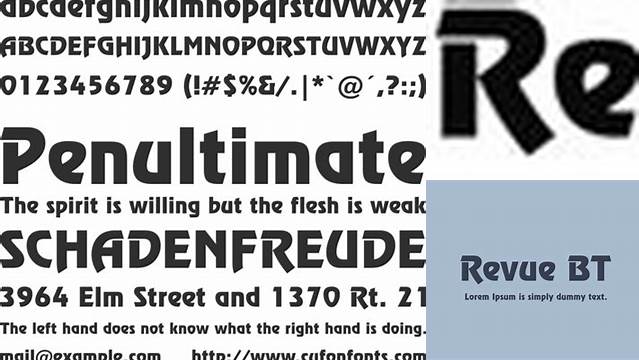
Revue BT Regular Font: Free Download & Usage Guide
Hey guys! Are you on the hunt for a versatile and stylish font that can elevate your design projects? Look no further! In this comprehensive guide, we're diving deep into the world of Revue BT Regular font, exploring its features, benefits, and how you can snag it for free. Whether you're a seasoned designer or just starting out, this article is your one-stop shop for everything Revue BT Regular.
What is Revue BT Regular Font?
Revue BT Regular font is a classic typeface known for its clean lines, elegant curves, and overall readability. This font belongs to the sans-serif family, which means it lacks the small decorative strokes (serifs) found in traditional fonts like Times New Roman. The absence of serifs gives Revue BT Regular a modern and minimalist aesthetic, making it a popular choice for a wide range of design applications. The font's versatility stems from its balanced proportions and consistent letterforms, ensuring legibility across various sizes and mediums. Whether you're designing a sleek website, a professional brochure, or an engaging presentation, Revue BT Regular can help you achieve a polished and sophisticated look. Its neutrality makes it a fantastic choice for projects where the message needs to take center stage, without the font overpowering the content. Revue BT Regular's appeal extends to its availability in various weights and styles, offering designers flexibility in creating visual hierarchy and emphasis. The regular weight, as the name suggests, provides a balanced and neutral appearance, making it suitable for body text and headings alike. The font's clarity and readability are particularly beneficial for longer texts, ensuring a comfortable reading experience for your audience. In the digital realm, Revue BT Regular shines with its excellent rendering on screens, maintaining its crispness and legibility even at smaller sizes. This makes it a go-to choice for web designers aiming for a clean and professional online presence. Moreover, its compatibility across different operating systems and devices ensures a consistent visual experience for all users. For print projects, Revue BT Regular delivers equally impressive results, producing sharp and well-defined characters on paper. Its versatility makes it a valuable asset for designers working on both digital and print media. The font's ability to seamlessly blend into various design contexts makes it a timeless and reliable choice for any project, ensuring a professional and aesthetically pleasing outcome. Its enduring popularity among designers is a testament to its quality and versatility.
Key Features and Benefits of Revue BT Regular
Let's break down the key features and benefits of Revue BT Regular font that make it such a popular choice among designers. First and foremost, its clean and modern aesthetic is a major draw. The sans-serif design gives it a contemporary feel, making it perfect for projects that need to convey a sense of sophistication and clarity. This makes it a fantastic choice for branding materials, websites, and any design where you want to project a professional image. The simplicity of the font ensures that it doesn't distract from the message, allowing your content to take center stage. In addition to its aesthetic appeal, Revue BT Regular boasts excellent readability. The well-defined letterforms and balanced proportions make it easy on the eyes, even in long blocks of text. This is crucial for ensuring that your audience can comfortably read and engage with your content. Whether you're designing a website with lengthy articles or a brochure with detailed information, the readability of Revue BT Regular will help keep your audience engaged. Versatility is another standout feature of this font. It works well in a variety of applications, from headlines and body text to logos and branding materials. This flexibility makes it a valuable asset for any designer, as it can be used across a wide range of projects. You can use it for both print and digital designs, ensuring consistency across all your branding and marketing materials. The font's adaptability makes it a cost-effective choice, as you won't need to invest in multiple fonts for different purposes. Furthermore, Revue BT Regular is known for its compatibility across different platforms and devices. This means that your designs will look consistent whether they're viewed on a desktop computer, a mobile phone, or a printed page. This is particularly important in today's multi-device world, where users access content from a variety of devices. Ensuring consistency in your typography will help maintain a professional and cohesive brand image. The font also supports a wide range of characters and languages, making it a great choice for international projects. Its extensive character set allows you to communicate effectively with a global audience, without worrying about missing characters or glyphs. This makes it a valuable asset for businesses and organizations that operate in multiple countries or regions. Finally, the availability of Revue BT Regular for free (in many cases, with certain licensing restrictions) makes it an attractive option for designers on a budget. This allows you to access a high-quality font without incurring additional costs. However, it's essential to understand the licensing terms associated with free fonts to ensure that you're using them legally and ethically. Overall, the combination of its aesthetic appeal, readability, versatility, compatibility, and potential free availability makes Revue BT Regular a top choice for designers looking for a reliable and stylish font.
Best Uses for Revue BT Regular Font
So, you've got Revue BT Regular font – now what? Let's explore the best uses for this versatile typeface. Its clean and modern aesthetic makes it a fantastic choice for branding. Whether you're designing a logo, creating a brand style guide, or developing marketing materials, Revue BT Regular can help you establish a professional and consistent brand identity. The font's simplicity and readability ensure that your brand message is communicated clearly and effectively. Its neutrality allows it to pair well with a variety of other design elements, making it a versatile choice for branding across different industries. In the realm of web design, Revue BT Regular truly shines. Its excellent readability on screens makes it ideal for body text, headings, and navigation menus. The font's clean lines and balanced proportions ensure a comfortable reading experience for your website visitors. This is crucial for keeping users engaged and preventing them from getting overwhelmed by the text. Its compatibility across different browsers and devices is another major advantage, ensuring that your website looks consistent for all users. Revue BT Regular also works well in responsive designs, adapting seamlessly to different screen sizes. For print projects, Revue BT Regular is equally effective. Its crisp letterforms and clear legibility make it a great choice for brochures, flyers, posters, and other printed materials. The font's versatility allows you to use it for both headlines and body text, creating a cohesive and professional look. Whether you're designing a marketing campaign or a corporate report, Revue BT Regular can help you achieve a polished and impactful result. The font's neutrality ensures that it doesn't distract from the content, allowing your message to take center stage. In editorial design, such as magazines and newspapers, Revue BT Regular provides a clean and readable typeface that enhances the overall reading experience. Its balanced letterforms and consistent spacing make it easy to read long blocks of text, which is essential for engaging readers. The font's versatility allows it to be used for headlines, subheadings, and body text, creating a harmonious and visually appealing layout. Its professional appearance makes it suitable for a wide range of editorial content, from news articles to feature stories. Furthermore, Revue BT Regular is a solid choice for presentations. Its readability and clarity ensure that your slides are easy to understand, even from a distance. The font's modern aesthetic adds a touch of professionalism to your presentations, helping you make a strong impression on your audience. Whether you're presenting to a small group or a large conference, Revue BT Regular can help you communicate your message effectively. It's particularly well-suited for presentations that require a clean and minimalist design. Finally, consider Revue BT Regular for UI/UX design. Its clear and legible characters make it an excellent option for interface elements such as buttons, labels, and menus. The font's simplicity ensures that the user interface is intuitive and easy to navigate. Its modern aesthetic aligns well with current design trends, helping you create a visually appealing and user-friendly interface. By leveraging its versatility and legibility, you can use Revue BT Regular to enhance the overall user experience of your digital products.
Alternatives to Revue BT Regular Font
Conclusion: Is Revue BT Regular Font Right for You?
So, after this deep dive, is Revue BT Regular font right for you? The answer, as with most design choices, depends on your specific needs and preferences. However, let's recap the key takeaways to help you make an informed decision. Revue BT Regular is a versatile sans-serif font known for its clean lines, modern aesthetic, and excellent readability. These qualities make it a solid choice for a wide range of applications, from branding and web design to print projects and presentations. Its neutrality allows it to seamlessly integrate into various design contexts, making it a reliable and adaptable typeface. One of the main advantages of Revue BT Regular is its potential availability for free. While commercial use often requires a license, you may be able to find it for personal projects or try it out before committing to a purchase. However, always remember to carefully check the licensing terms before using any font, especially for commercial purposes. This will help you avoid any legal issues and ensure that you're using the font ethically. The font's legibility is another significant benefit. Its well-defined letterforms and balanced proportions make it easy on the eyes, even in long blocks of text. This is crucial for ensuring that your audience can comfortably read and engage with your content. Whether you're designing a website with lengthy articles or a brochure with detailed information, the readability of Revue BT Regular will help keep your audience interested. Its modern and minimalist design makes it suitable for projects that need to convey a sense of professionalism and clarity. The sans-serif style gives it a contemporary feel, making it a great choice for businesses and organizations that want to project a forward-thinking image. Its simplicity ensures that it doesn't distract from the message, allowing your content to take center stage. The font's compatibility across different platforms and devices is also a key consideration. Ensuring that your designs look consistent whether they're viewed on a desktop computer, a mobile phone, or a printed page is essential for maintaining a professional and cohesive brand image. Revue BT Regular's broad compatibility makes it a dependable choice for designers who need their work to look its best across all mediums. However, if you're looking for a font with a bit more personality or a specific stylistic flair, there are many alternatives to consider. Fonts like Helvetica, Arial, Futura, and Open Sans offer similar characteristics while providing their own unique touch. Exploring these alternatives can help you find the perfect font to complement your design style and meet the specific needs of your project. Ultimately, the best way to decide if Revue BT Regular is right for you is to try it out in your own designs. Download the font (from a reputable source, of course!) and experiment with it in different contexts. See how it looks in your logos, websites, and print materials. Play around with different sizes and weights to find the best fit for your project. By testing it firsthand, you can get a better sense of whether it aligns with your aesthetic preferences and design goals. In conclusion, Revue BT Regular is a solid and versatile font that can be a valuable asset in your design toolkit. Its clean lines, readability, and potential free availability make it a worthwhile option to explore. By carefully considering your specific needs and preferences, you can determine whether it's the right choice for your next project. Happy designing!